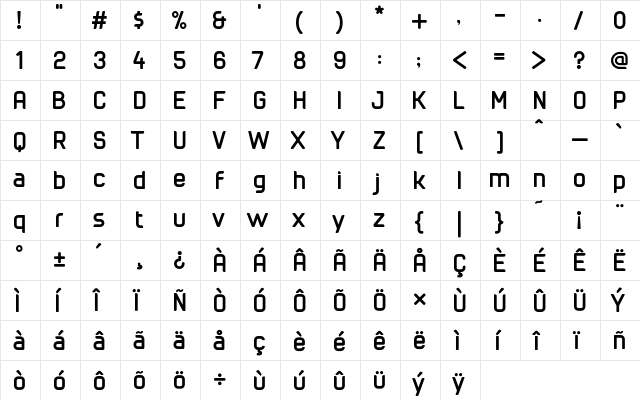
cuyabra Bold
Design Context for cuyabra Typeface
cuyabra offers clean, dependable letterforms without strong stylistic allegiance, making it a practical choice for designers who need flexibility. Its bold stroke weight gives it real presence on the page.